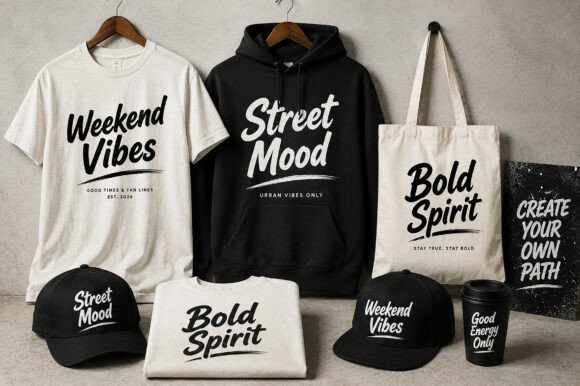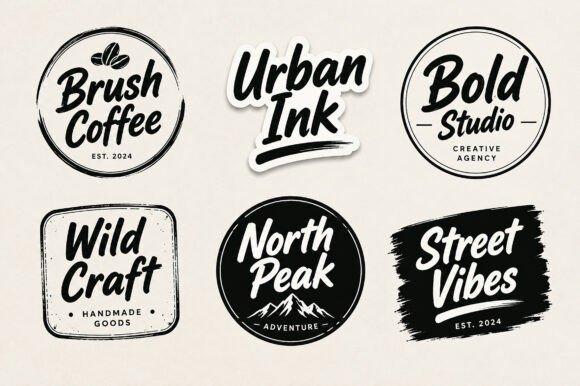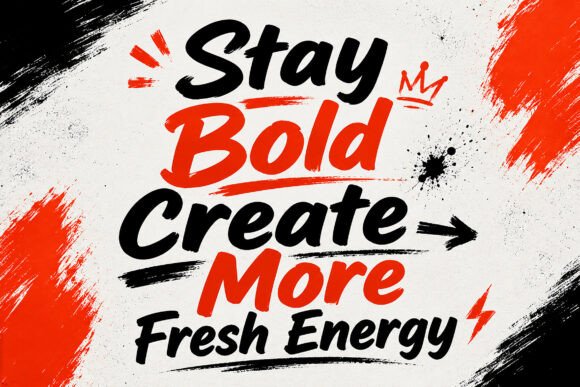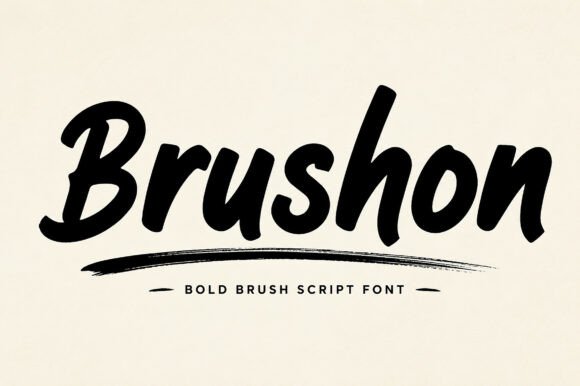
Introducing Brushon: The Bold Brush Script Font for Creative Projects
Are you looking for a font that can add a handcrafted, authentic feel to your creative projects? Look no further than Brushon, a bold and energetic brush script font designed to bring a touch of modern style and artistic expression to your designs. With its smooth brush strokes, strong character shapes, and natural handwritten flow, Brushon is the perfect choice for designers and crafters who want to create impactful visual identities with a casual yet professional appearance.
What Makes Brushon Special?
Brushon is more than just a font – it’s a design statement. Its bold brush texture and dynamic lettering make it ideal for a wide range of creative projects, from logos and branding to packaging, apparel designs, social media graphics, posters, quotes, and merchandise. Whether you’re a professional designer or a crafty DIY enthusiast, Brushon has the power to instantly elevate your designs and make them stand out from the crowd.
So, what can you use Brushon for? The possibilities are endless! Here are some ideas to get you started:
- Logo Design: Create a bold and eye-catching logo that makes a lasting impression with Brushon’s smooth brush strokes and strong character shapes.
- Branding Projects: Develop a consistent visual identity for your brand with Brushon’s dynamic lettering and natural handwritten flow.
- Apparel & T-Shirt Designs: Add a touch of personality to your apparel designs with Brushon’s bold and energetic font.
- Packaging Design: Make your packaging stand out on store shelves with Brushon’s eye-catching and creative font.
- Social Media Graphics: Create engaging social media graphics that grab attention with Brushon’s bold brush texture and dynamic lettering.
- Posters & Flyers: Design striking posters and flyers that showcase your message with Brushon’s strong character shapes and natural handwritten flow.
- Quotes & Headlines: Add emphasis to your quotes and headlines with Brushon’s bold and energetic font.
- Product Labels: Create eye-catching product labels that stand out with Brushon’s smooth brush strokes and dynamic lettering.
- Stickers: Design fun and creative stickers that showcase your personality with Brushon’s bold brush texture and natural handwritten flow.
- Merchandise: Add a touch of authenticity to your merchandise with Brushon’s handcrafted and artistic font.
- Advertising Materials: Create impactful advertising materials that grab attention with Brushon’s bold and energetic font.
Font Features
Brushon comes with a range of features that make it easy to use and versatile. Here are some of the key features:
- Uppercase & Lowercase Characters: Brushon includes both uppercase and lowercase characters, making it easy to create a wide range of designs.
- Numbers & Punctuation: Brushon also includes numbers and punctuation marks, giving you everything you need to create professional-looking designs.
Why Choose Brushon?
So, why should you choose Brushon for your creative projects? Here are just a few reasons:
- Unique and Authentic Look: Brushon’s bold brush texture and natural handwritten flow give it a unique and authentic look that’s perfect for designers and crafters who want to add a touch of personality to their designs.
- Easily Readable: Despite its bold and energetic appearance, Brushon is easily readable, making it perfect for use in a wide range of designs.
- Versatile: Brushon is versatile and can be used for a wide range of creative projects, from logos and branding to packaging and merchandise.
In conclusion, Brushon is a bold and energetic brush script font that’s perfect for designers and crafters who want to add a touch of authenticity and personality to their creative projects. With its smooth brush strokes, strong character shapes, and natural handwritten flow, Brushon delivers the perfect balance between modern style and artistic expression. So why wait? Download Brushon today and start creating impactful visual identities that stand out from the crowd!